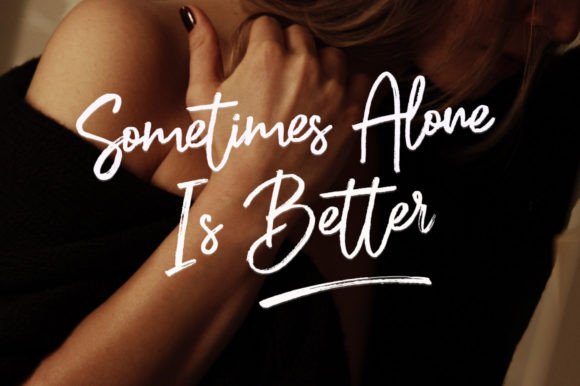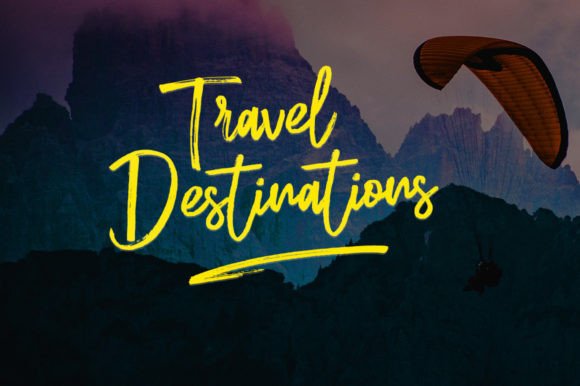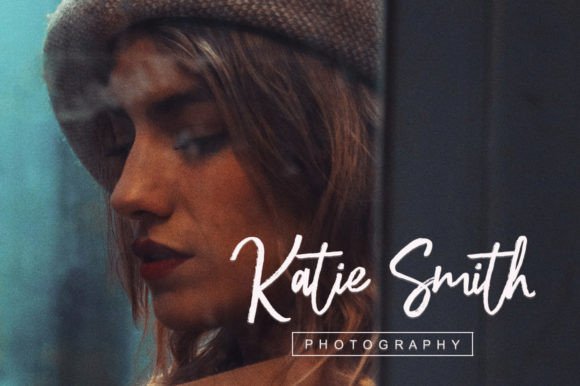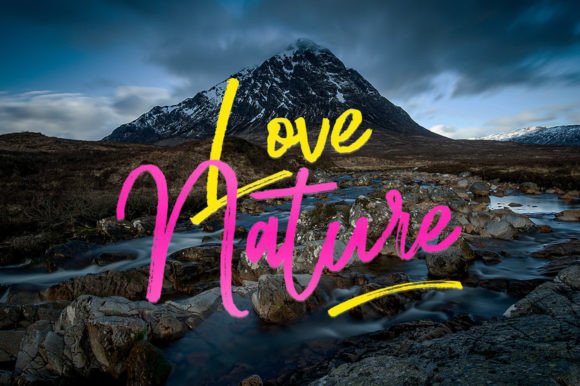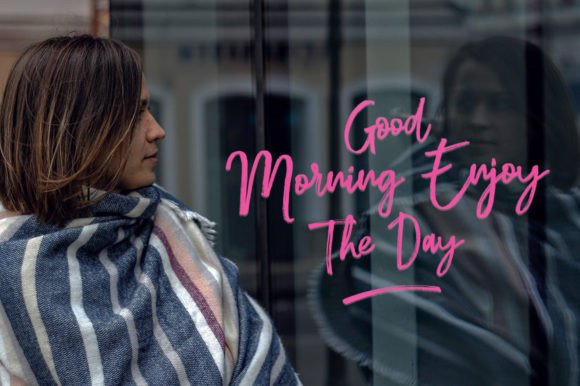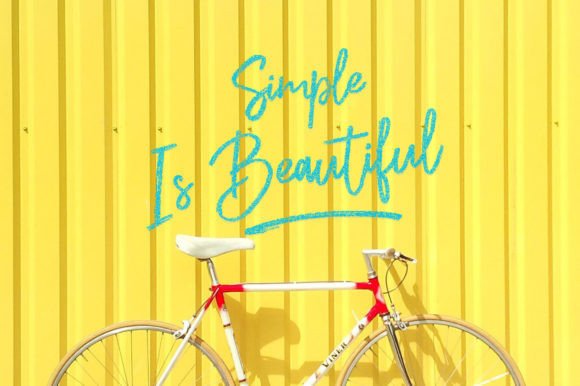
Introduction to Emithey Font
Emithey is a romantic brushed calligraphy typeface with characters that dance along the baseline.
It will add a luxury spark to any design project that you wish to create This font is PUA encoded which means you can access all of the glyphs and swashes with ease.